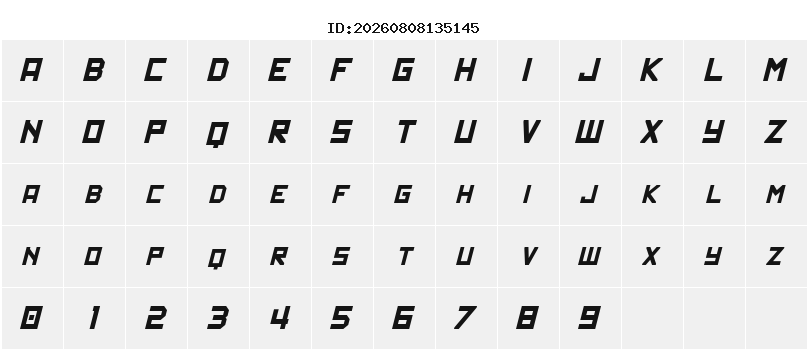
Politik Preview
• Font Name: Politik
• Full Font Name: Politik Italic
• Designer: Neale Davidson
About Politik.otf
Politik.otf is a modern, elegant sans-serif font designed for ultimate readability and visual harmony. Perfect for branding, headlines, web design, and print materials.